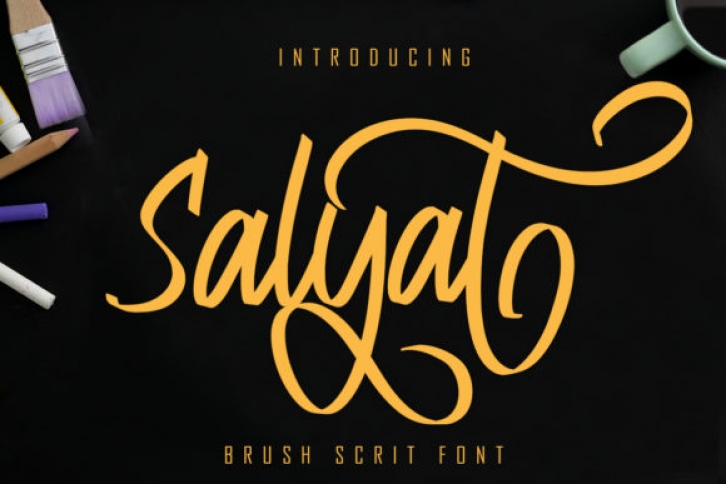
Salyat is a lovely and whimsical paint brushed handwritten font. It can be used for various purposes such as logos, wedding invitations, headings, t-shirts, letterhead, signage, labels, news, posters, badges and so much more.
Salyat is PUA encoded which means you can access all of the glyphs and swashes with ease!